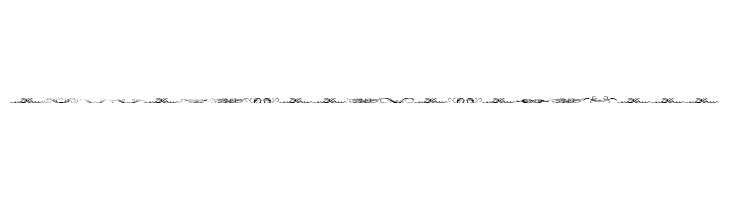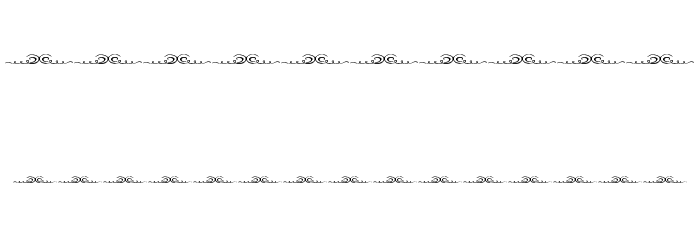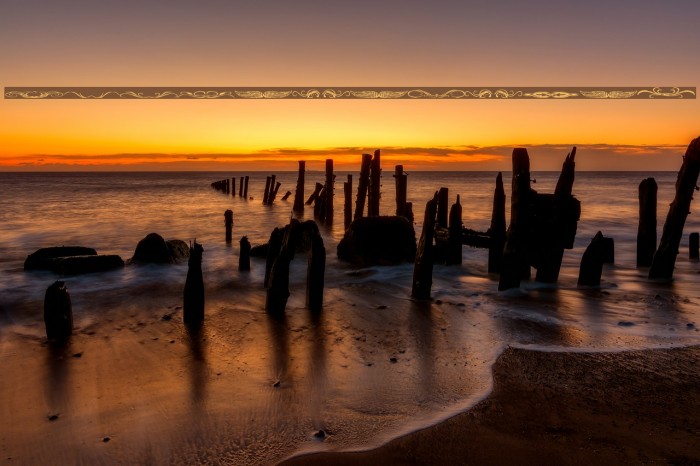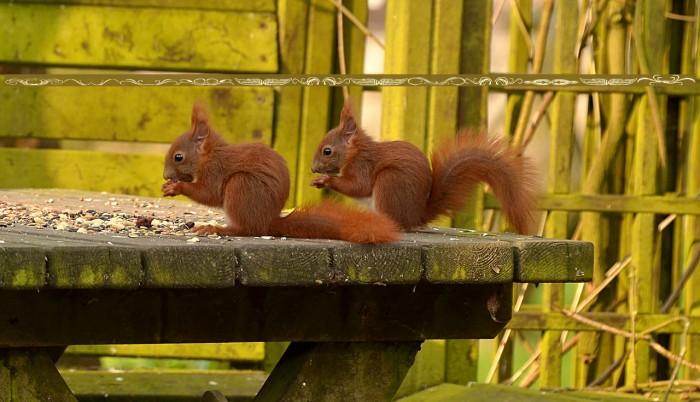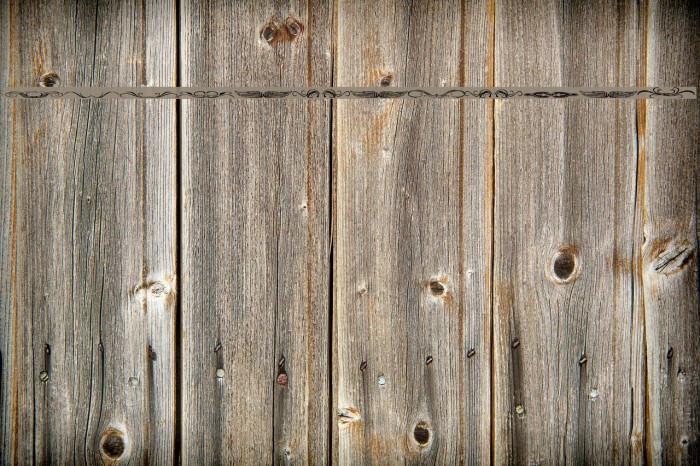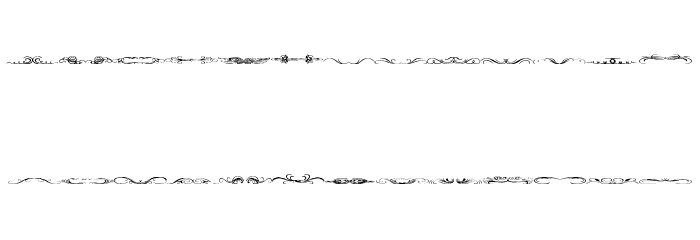
Sughayer Separates 15 Font
Sughayer Separates 15 Description
A collection of ornate, decorative line separators featuring intricate swirls and flourishes, designed to serve as embellishments or dividers in layouts rather than as a traditional font for text.
Ornamental line separators with elegant flourishes from Uncategorized fonts.
- Proposed Projects: Wedding invitations, certificates, vintage-themed designs, decorative borders, formal event programs.
- Weight: Light
- Character Spacing: N/A
- Overall Style: Decorative, Vintage
- Use Case: Dividers, Borders, Decorative accents